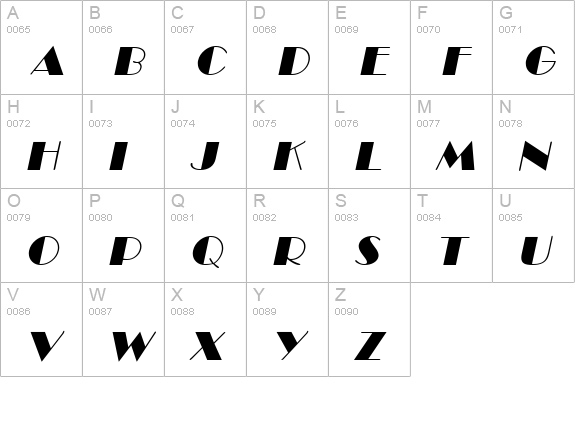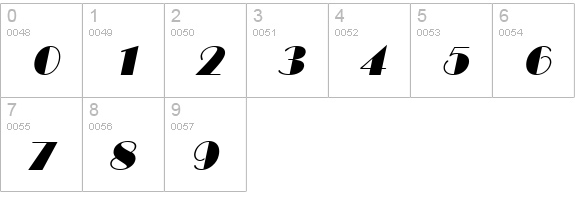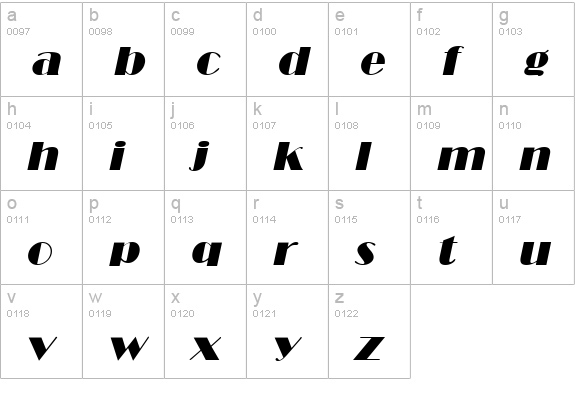
Marquee Italic Font Details
Marquee Italic is a distinctive, italic variant in the Marquee typeface family \xE2\x80\x94 well suited to design and typography projects.
Introducing Marquee Italic, a stunning and elegant font that effortlessly combines vintage charm with a contemporary twist. With its sleek and slanted letterforms, Marquee Italic exudes a sense of sophistication and style, making it perfect for a wide range of projects. This font boasts a unique blend of classic and modern elements, making it suitable for both traditional and cutting-edge designs. Whether you're creating a luxurious wedding invitation, a captivating logo, or a captivating blog post, Marquee Italic will elevate your creations to new heights. With its delicate curves and graceful strokes, Marquee Italic brings a touch of elegance to any project. Each letter is meticulously designed to ensure smooth and seamless connections, resulting in a harmonious and visually pleasing effect. One of the best things about Marquee Italic is that it is free! Yes, you read that right. This incredible font is freely available to download at FontsMarket.com. So, you can enhance your designs without breaking the bank. Marquee Italic is a versatile and highly legible font that is suitable for both display and text purposes. Its clean and well-defined letterforms ensure readability at any size, making it perfect for headlines, body text, and everything in between. Whether you're a professional designer or a creative enthusiast, Marquee Italic will undoubtedly become your go-to font for a wide range of projects. It is time to add a touch of elegance and sophistication to your designs with this remarkable typeface. Download Marquee Italic for free at FontsMarket.com and unleash your creativity today!